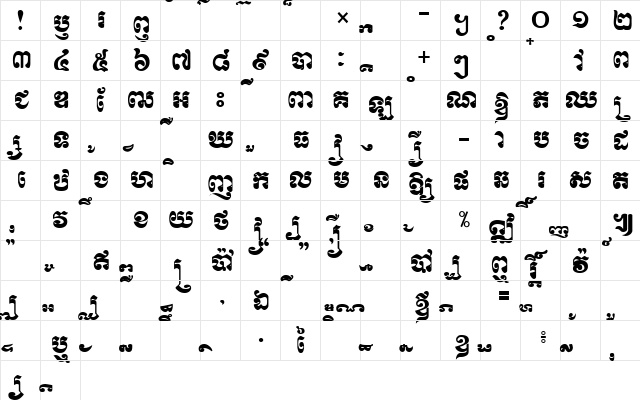
Kbach New Normal
Design Context for Kbach New Typeface
Kbach New takes a measured approach to typography — its balanced proportions and neutral character make it a reliable workhorse for both digital and print work.